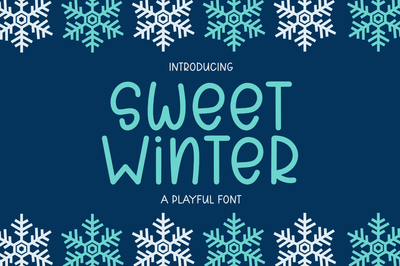
Sweet Winter - A Playful Font
Sweet Winter is an attractive display font with playful glyph characters. This font is also very cute and funny. This font can be used for various purposes such as, t-shirts, mugs, cut files, and many more. This font is also compatible. because it supports TTF, OTF, & WOFF formats